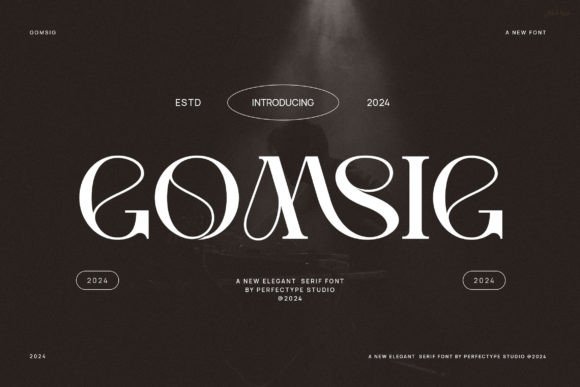
Gomsig Font: Elevate Your Designs with Timeless Elegance
In the world of typography, few fonts manage to convey the essence of sophistication and elegance as effortlessly as Gomsig. This exquisite typeface, known for its refined strokes and graceful curves, has become a go-to choice for designers seeking to add a touch of class to their projects. Whether you’re working on invitations, logos, or branding materials, Gomsig’s distinguished presence is sure to elevate your designs to new heights.
The Characteristics of Gomsig Elegant Serif Typeface
Gomsig is more than just a font; it’s an experience. Its elegant serif design is characterized by meticulously crafted strokes that exude refinement and poise. The font’s curves are graceful, flowing smoothly into each other to create a sense of continuity and harmony. This attention to detail makes Gomsig perfect for projects where making a lasting impression is paramount.
Key Features of Gomsig Font
- Refined Strokes: Gomsig’s strokes are designed to bring a level of sophistication to your designs, making it ideal for high-end projects.
- Graceful Curves: The font’s curves add a touch of elegance, ensuring your designs stand out with a unique flair.
- PUA Encoding: Gomsig is PUA encoded, allowing easy access to a wide range of glyphs and ligatures, making your design process smoother and more efficient.
- Timeless Appeal: Unlike trends that fade over time, Gomsig’s classic design ensures your projects remain relevant and stylish for years to come.
Applications of Gomsig Font
Gomsig’s versatility makes it suitable for a variety of design applications. Here are some of the most popular uses:
1. Invitations and Event Materials
For weddings, galas, and other formal events, Gomsig provides the perfect typographic solution. Its elegant appearance adds a level of prestige and sophistication to your invitations and event materials, setting the tone for a memorable occasion.
2. Logo Design
Creating a logo that stands out requires a font that communicates your brand’s personality. Gomsig’s distinguished presence makes it an excellent choice for logos, especially for brands aiming to project an image of luxury, elegance, and refinement.
3. Branding Materials
Consistency in branding is key, and typography plays a crucial role in this. Gomsig can be used across various branding materials, including business cards, letterheads, and packaging, to create a cohesive and sophisticated brand image.
Why Choose Gomsig Font?
With so many fonts available, why should Gomsig be your go-to choice? The answer lies in its unique blend of elegance, versatility, and practicality. Here are a few reasons why Gomsig stands out:
1. Unparalleled Elegance
Gomsig offers a level of elegance that is hard to find in other fonts. Its design is perfect for projects where you want to make a statement of sophistication and refinement.
2. Ease of Use
Thanks to its PUA encoding, Gomsig allows you to easily access a wide range of glyphs and ligatures, making it practical for use in various design projects.
3. Timeless Design
Gomsig’s classic design ensures that your projects won’t be bound by fleeting design trends. Your designs will remain stylish and relevant for years to come.
How to Use Gomsig Font Effectively
To get the most out of Gomsig, consider the following tips:
1. Pair with Complementary Fonts
While Gomsig is stunning on its own, pairing it with complementary fonts can enhance its beauty. Choose fonts that share a similar elegance to create a harmonious design.
2. Adjust Font Sizes and Weights
Experimenting with different font sizes and weights can add depth and interest to your designs. Use Gomsig’s various weights to create a visual hierarchy that guides the viewer’s eye.
3. Utilize Glyphs and Ligatures
Take full advantage of Gomsig’s PUA encoding by incorporating glyphs and ligatures into your designs. These elements can add a unique touch to your work, making it stand out.
Gomsig Elegant Serif Typeface is more than just a font; it’s a design statement. Its refined strokes, graceful curves, and timeless appeal make it the perfect choice for designers looking to add a touch of elegance to their projects. With its PUA encoding, Gomsig is not only beautiful but also practical, offering ease of use and versatility. Whether you’re designing invitations, logos, or branding materials, Gomsig is sure to elevate your designs with its distinguished presence.
Embrace Elegance with Gomsig